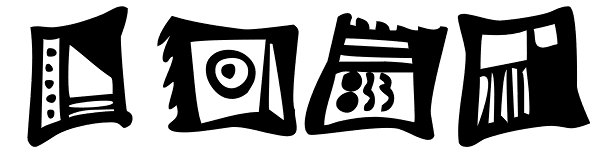
Annaments
Annaments are great as standalone embellishments where a whimsically modern yet primitive look is needed. These are digitized from my hand doodles that I created while waiting for jury duty. There are five separate fonts included in this family...
Twerp
Flake
Nerd
Geek
Dork